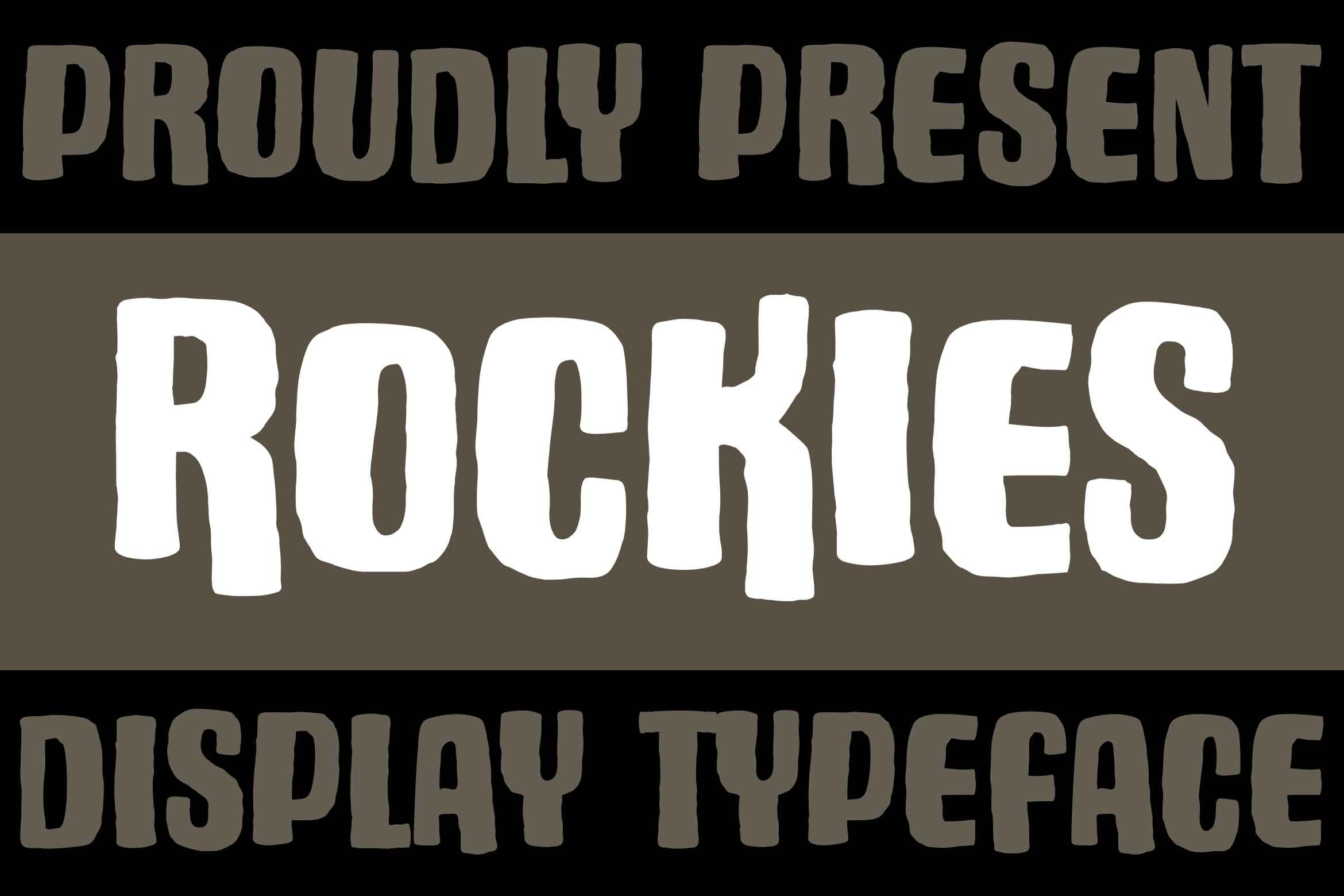
ROCKIES - Rough Display Font
Rockies is a Rough display font. Comes in a Regular and a italic version, so take your pick! this font is quirkiness and authenticity. This enchanting sans serif font will turn any creative idea into a true standout.